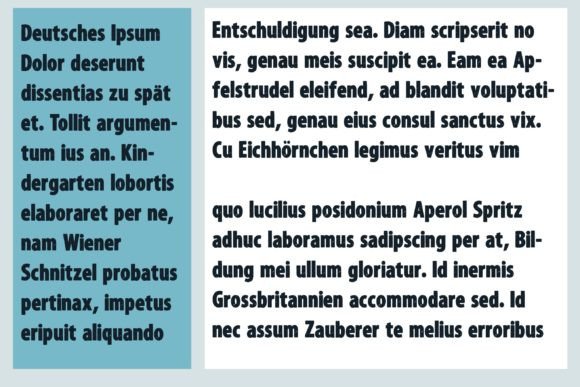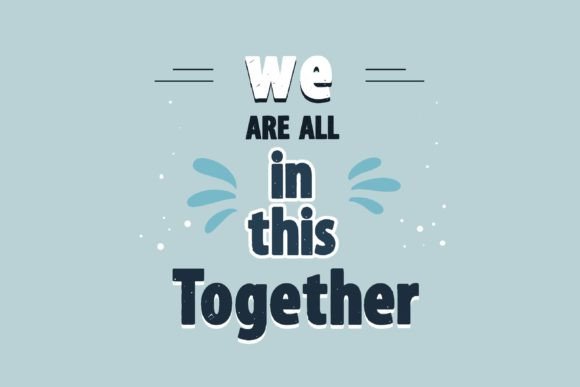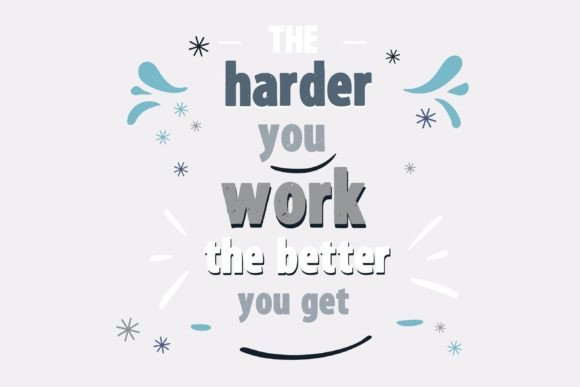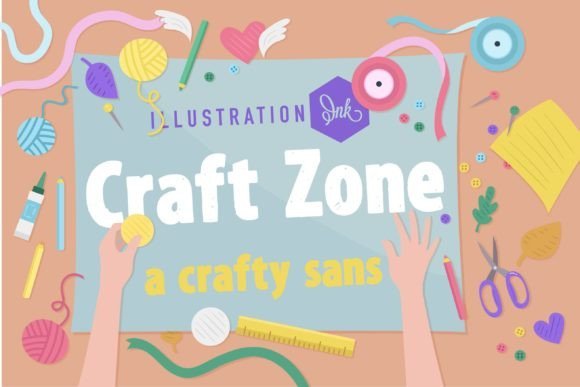
Introduction to Craft Zone Font
This hand-crafted sans serif and a homemade font with a bit of texture from heavy doodling throughout.
It is perfect for a wide spectrum of applications such as greeting cards, headlines, and many more Add it confidently to your projects, and you will love the results.
Why Choose Craft Zone Font?